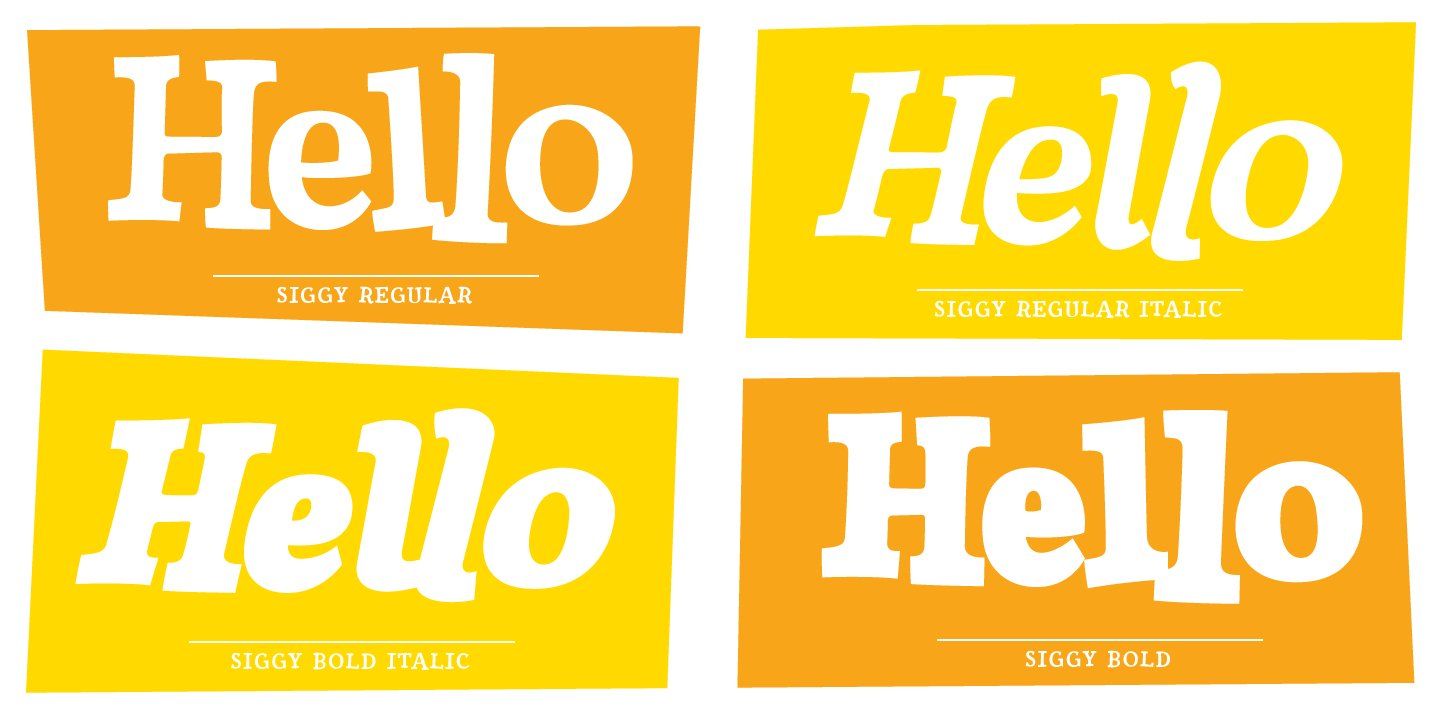
Siggy Font
Siggy Font miles common identity isn’t always uncommon in marvel font. This font is mainly used for the pairing motive. This great font has made significantly in an incredible kind preserving an opentype define the shape.
This font comes below the beauty of formidable fonts. That moreover comes beneath the elegance of the condensed font.
Style Of Siggy Font Free